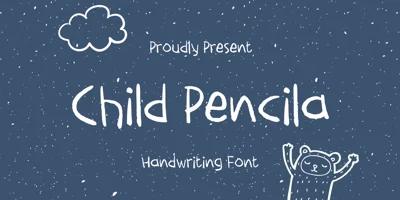
Child Pencila Font
Child Pencila Font is ideal for children's book illustrations, elementary school materials, kindergarten signage, educational app interfaces, kid-friendly product packaging, daycare center branding, children's activity worksheets, toy store marketing, family restaurant menus, and playful projects that celebrate the innocent charm and creative spontaneity of childhood handwriting and artistic expression.
What makes Child Pencila Font so exciting is its authentic recreation of genuine children's pencil handwriting with all the charming imperfections and natural irregularities that make childhood so endearing. This typeface captures the essence of learning and discovery, featuring uneven letter spacing and varying pressure that suggests a child's careful concentration while maintaining excellent readability for educational and commercial applications targeting young families.
Child Pencila Font family encompasses multiple age-appropriate variations: Regular, Bold, Light, Crayon, Marker, Sketchy, Neat, and Playful versions. Each style maintains the font's inherent childlike authenticity while offering different writing tools and skill levels, providing designers with comprehensive options for creating genuine childhood aesthetics that resonate with parents and educators seeking authentic educational materials.
The heartwarming appeal of Child Pencila Font makes it exceptionally valuable for educational and family-focused businesses. This font successfully communicates innocence and learning joy, making it perfect for brands that want to connect with parents and children through authentic childhood representation. Its charming character works beautifully across both digital learning platforms and printed educational materials, while its distinctive childlike handwriting creates immediate emotional connection with audiences who appreciate the precious nature of childhood development and learning.